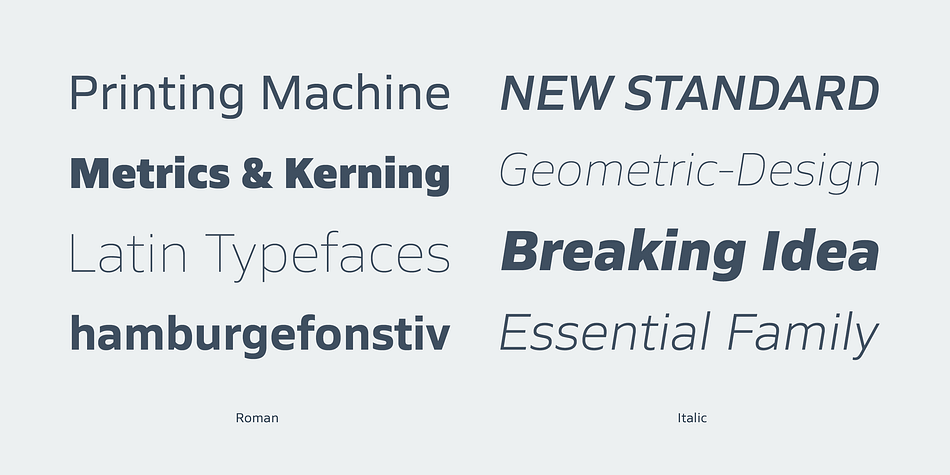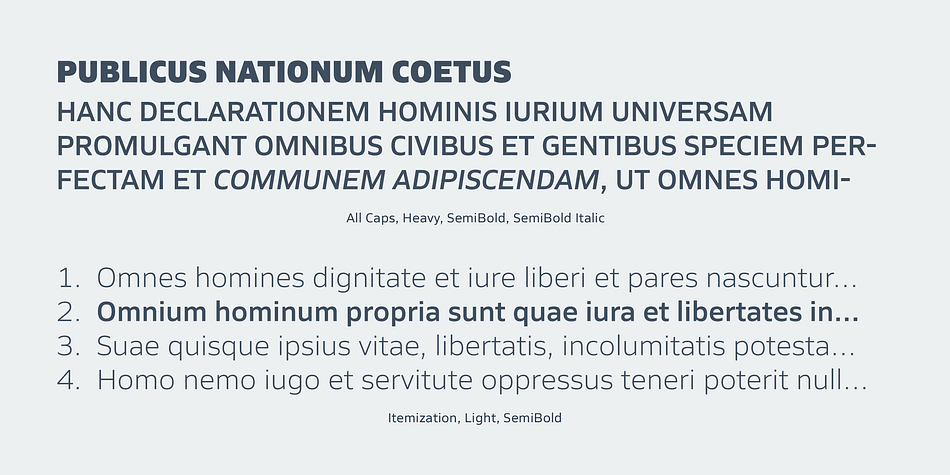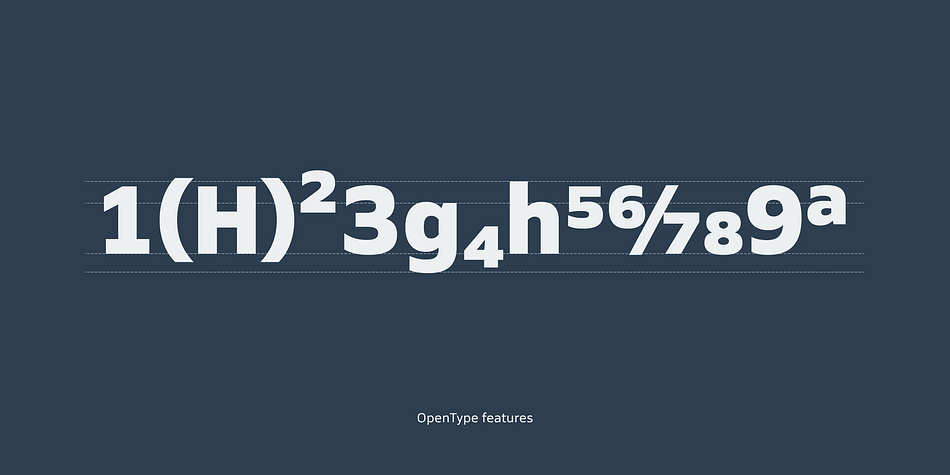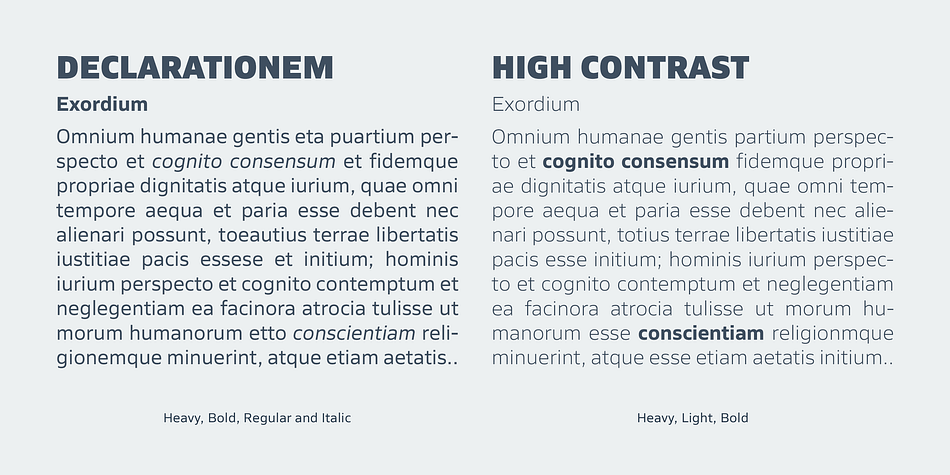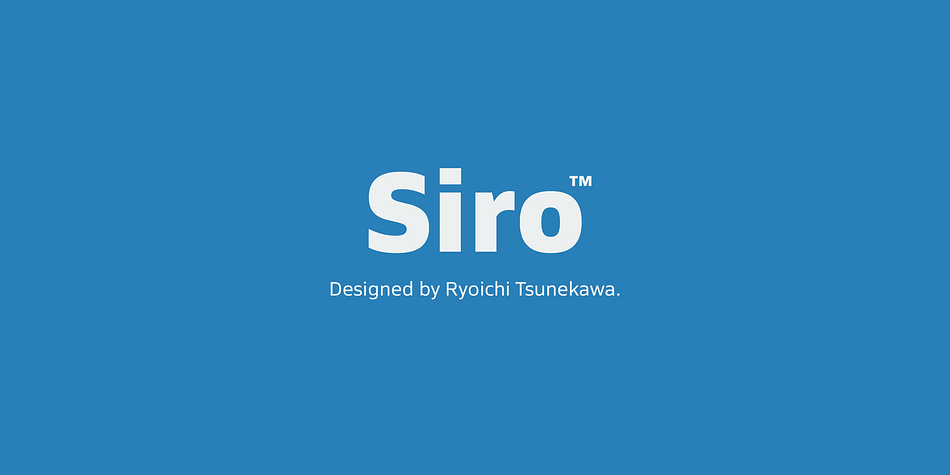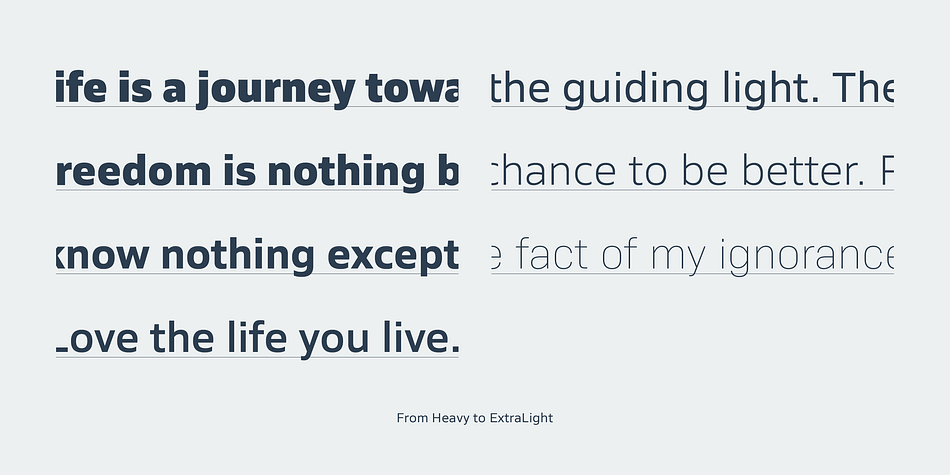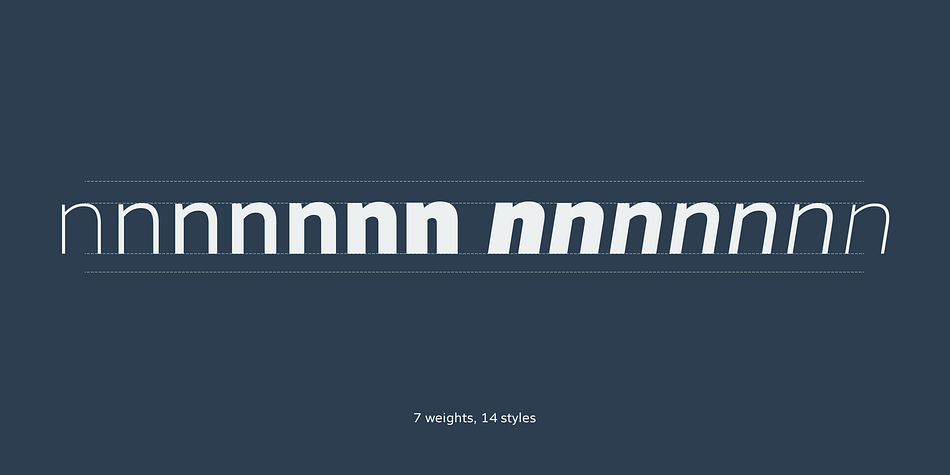
Siro is a sans serif font family. This typeface has fourteen styles and was published by Dharma Type.
Siro is a large x-height sans-serif family for text designed by Ryoichi Tsunekawa. The whole family consists of 7 weights from ExtraLight to Heavy and their matching Italics.
The basic skeleton of their letterform was designed simply to create neutral, natural and clean impression and their very large x-height makes this family legible and readable even on small size screen.
Siro supports almost all European languages: Western, Central, South Eastern Europeans and afrikaans. And proportional figures, superior figures, inferior figures, denominators, numerators, fractions, ordinals and case-sensitive-forms can be accessed by using OpenType features.